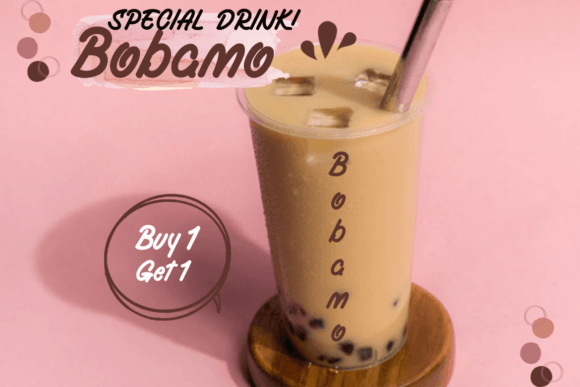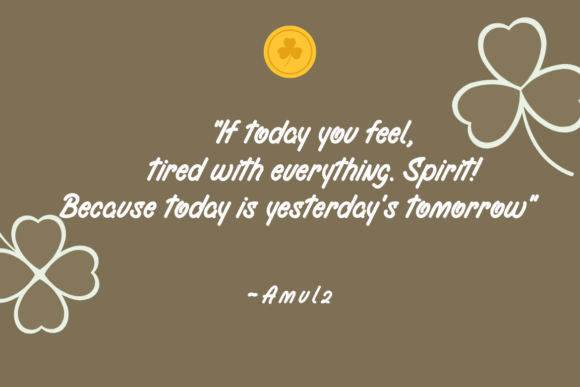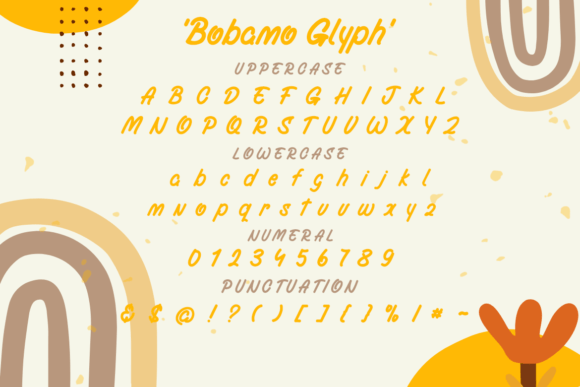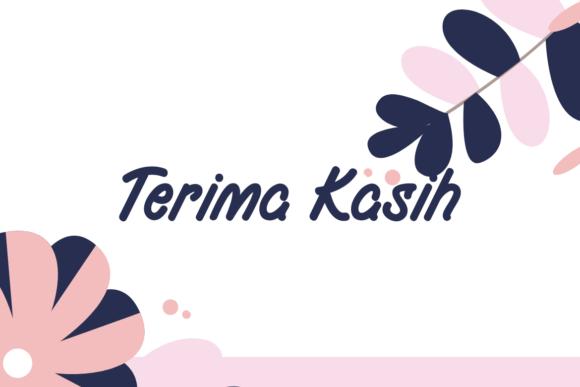
Bobamo Font
About Bobamo Font
Introducing Bobamo, a delightful and cute handwritten font that brings natural and charming characters to your design projects. This font is perfect for a variety of applications, from crafting ideas to creating visually appealing designs. With its playful and friendly appearance, Bobamo adds a touch of sweetness to your creative endeavors.
The charm of Bobamo lies in its handwritten style, which gives it a personal and approachable touch. The natural flow of the characters contributes to a warm and inviting aesthetic, making it well-suited for projects that aim to convey a friendly and lighthearted vibe.
The versatility of Bobamo makes it an excellent choice for a wide range of design applications. Whether you’re working on greeting cards, invitations, crafting projects, or any design that calls for a cute and handwritten aesthetic, Bobamo adapts seamlessly to various contexts.
Imagine using Bobamo for a children’s book cover, where its cute and playful characters engage young readers. In crafting projects such as DIY cards or scrapbooking, Bobamo adds a handmade and personalized touch. For social media graphics, the font’s charming style can enhance posts with a cute and friendly vibe.
Bobamo is not just a font; it’s a creative tool that invites you to infuse your projects with cuteness and charm. Whether you’re a designer working on professional projects or an enthusiast exploring crafting ideas, Bobamo is ready to add a touch of sweetness to your creative endeavors. Embrace the natural and charming characters of Bobamo and let your designs radiate with playful appeal.